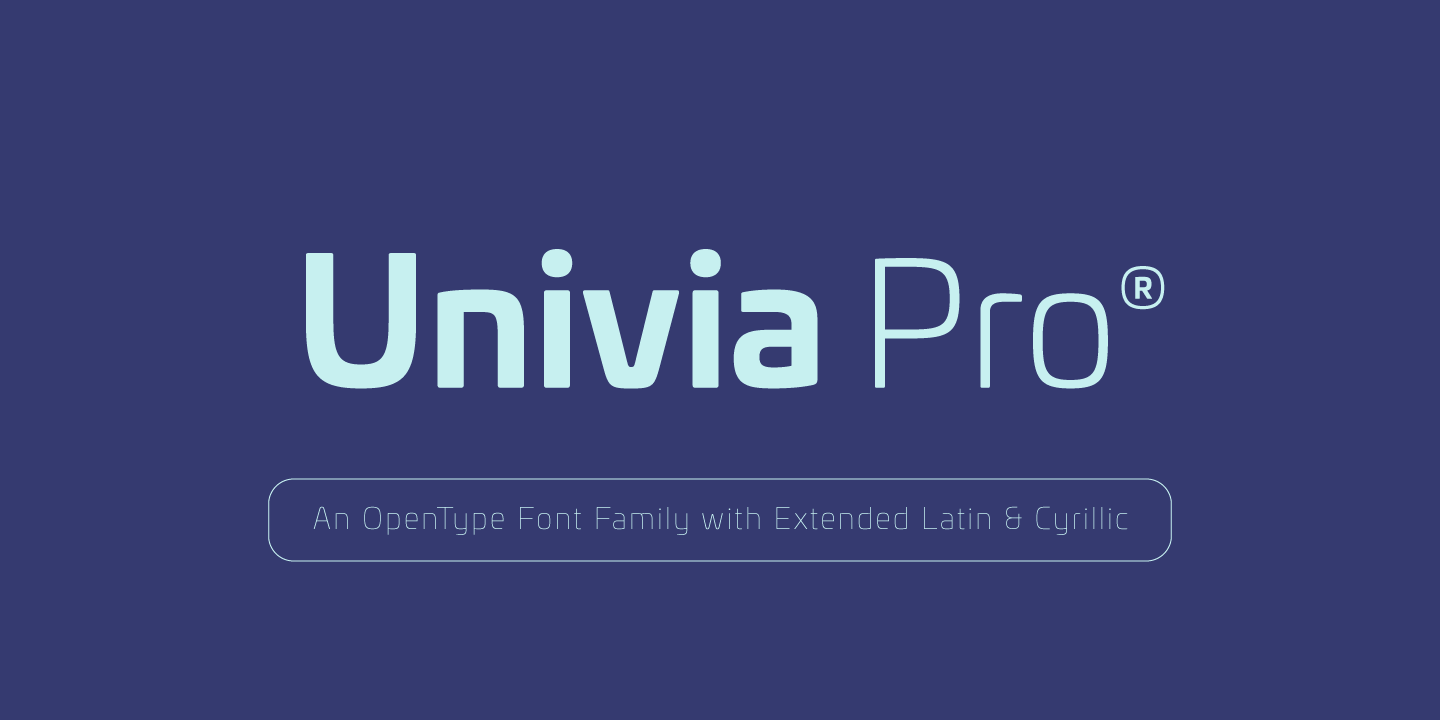
Univia Pro Font is ideal for corporate branding, professional presentations, annual reports, financial documents, business correspondence, technical manuals, architectural drawings, legal documents, and high-end marketing materials. This sophisticated sans-serif typeface brings clarity, professionalism, and contemporary elegance to any project requiring authoritative communication and visual excellence.
What makes Univia Pro Font exciting is its perfect balance of geometric precision and humanist warmth that creates exceptional readability across all media formats. The font features carefully refined letterforms with optimal character spacing, consistent stroke weights, and subtle design details that enhance legibility while maintaining a distinctly modern aesthetic. Its professional appearance commands respect and trust, making it ideal for businesses that need to communicate expertise and reliability.
The Univia Pro Font family includes comprehensive weight variations from thin to black, with corresponding italic styles for each weight. The complete family features extended character sets supporting multiple languages, advanced OpenType features, small caps, stylistic alternates, and professional typography options including tabular figures and fraction support.
Whether you're creating executive presentations or comprehensive brand systems, Univia Pro Font Free Download delivers uncompromising quality and versatility. This typeface performs exceptionally well in both digital and print environments, maintaining its crisp appearance at any size from business cards to billboard displays. Its neutral yet distinctive character makes it perfect for establishing professional credibility while ensuring maximum readability. The font's extensive feature set provides designers with complete typographic control for sophisticated layouts and complex information hierarchy.